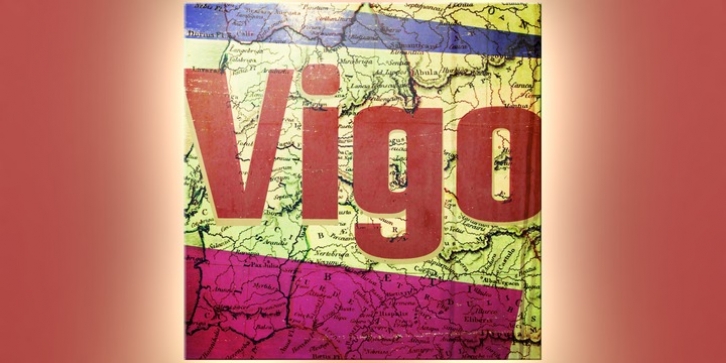
A blend of primitive lines, brutal curves and a pinch of beefy serifs gives Vigo a hearty weight with a touch of bravado. It feels masculine, modern and timeless all at once.